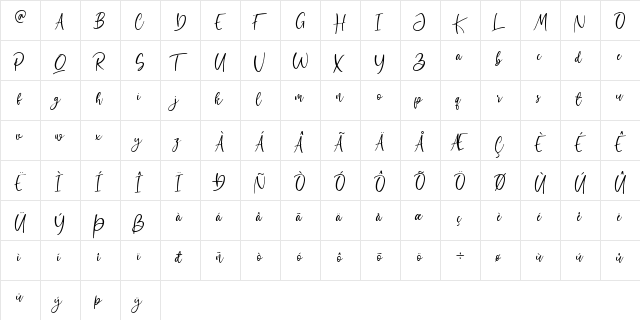
Bombinate Regular Font Preview
Bombinate Regular
Bombinate Regular Font Details
Design Context for Bombinate Typeface
Bombinate is a composed and adaptable typeface that performs quietly and consistently across a wide range of design contexts.